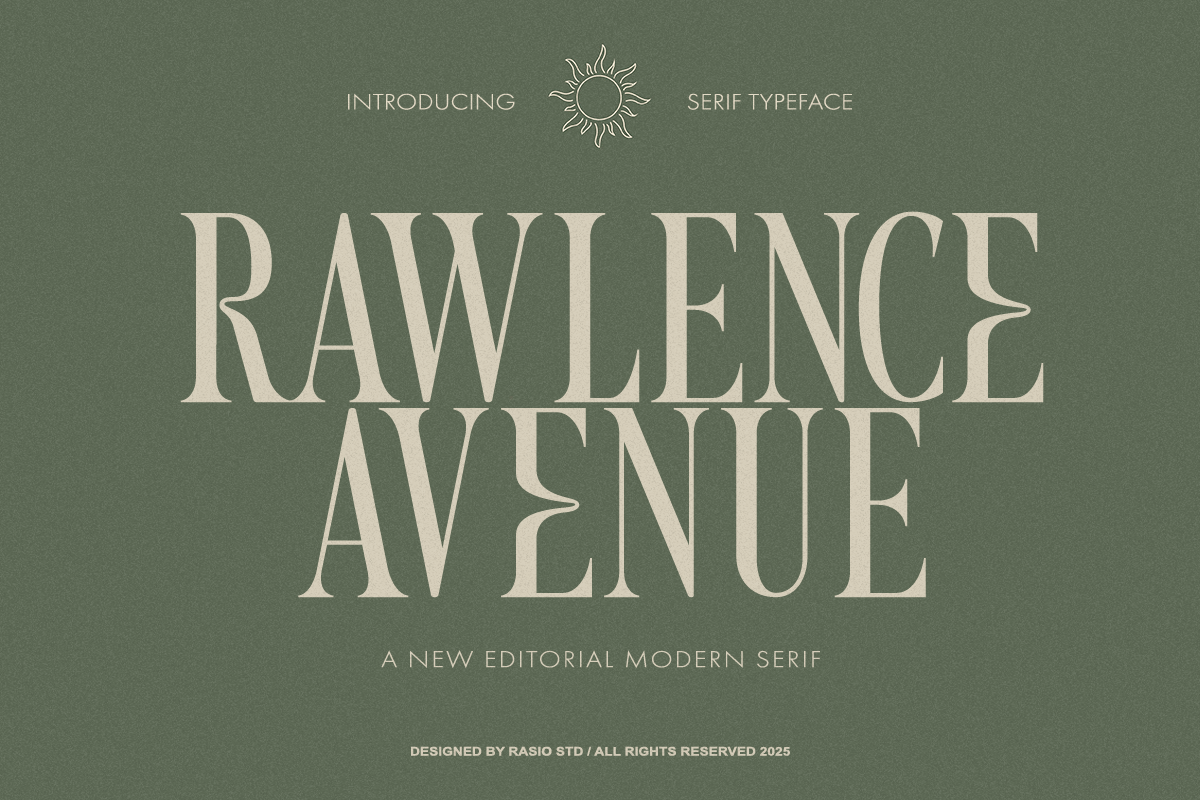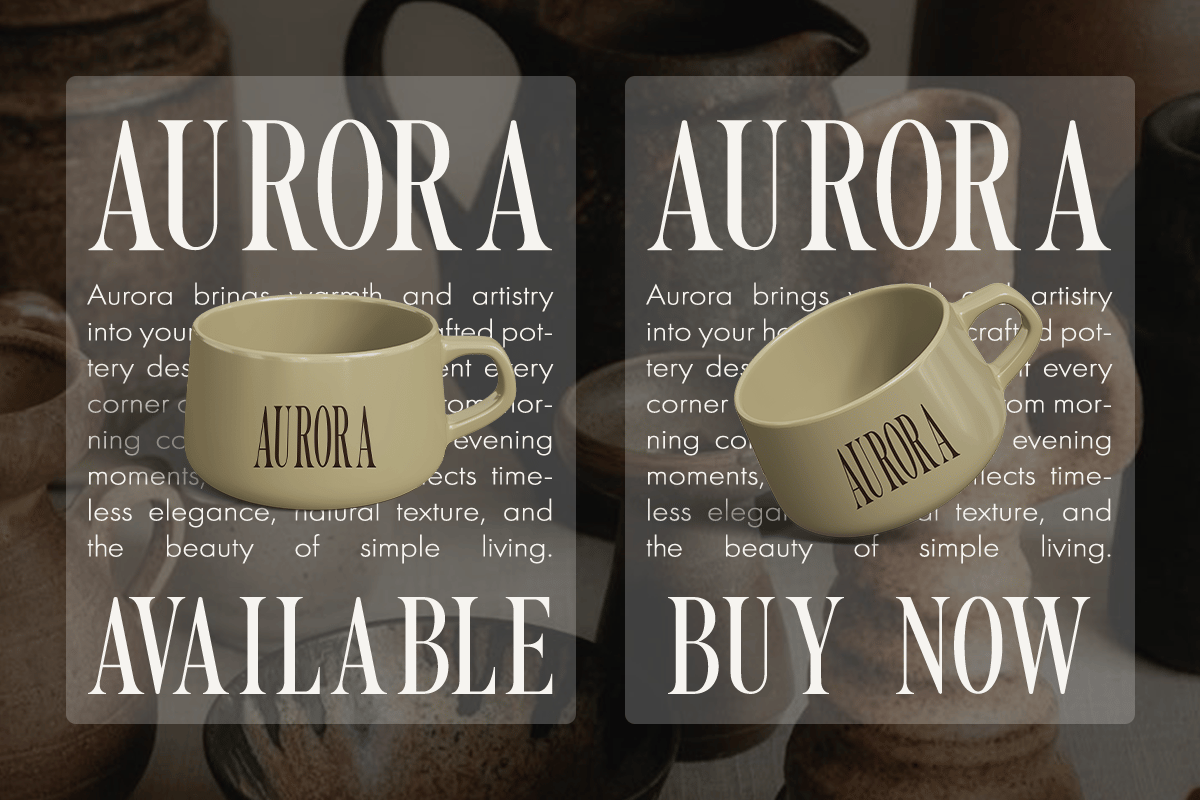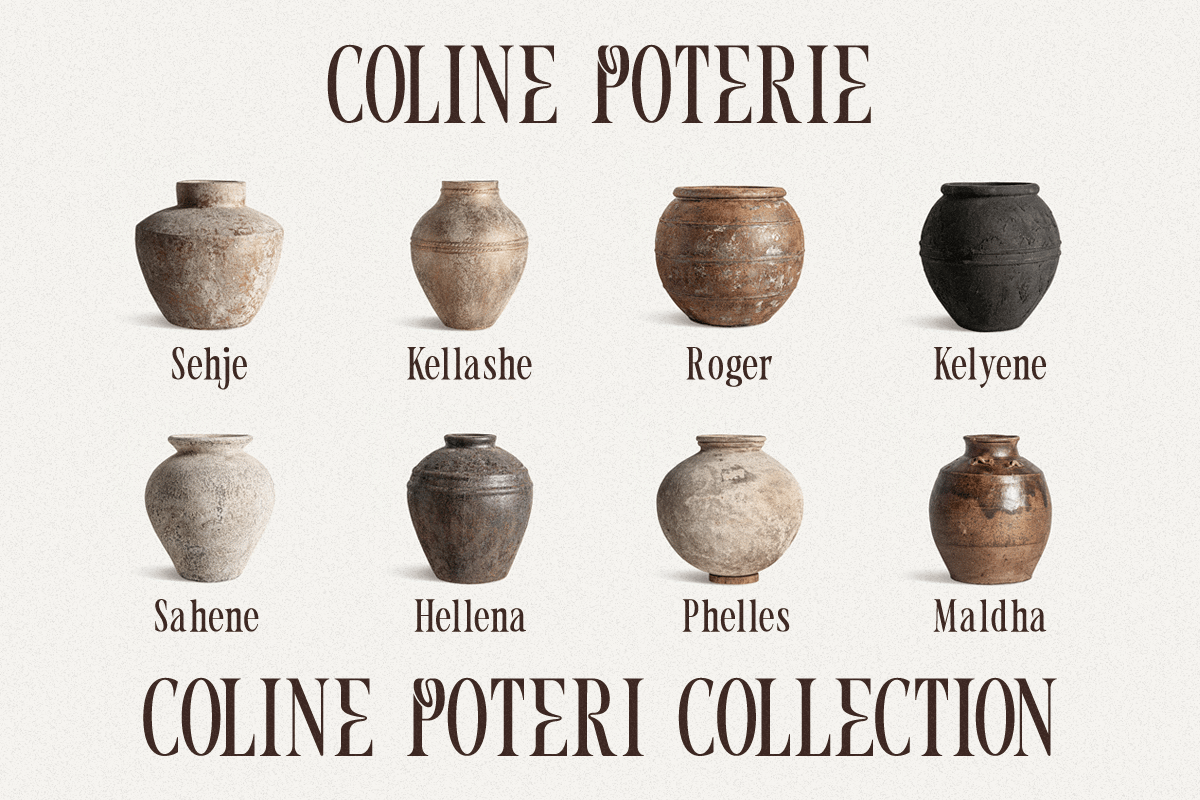
Rawlence Avenue Modern Serif Font
Rawlence Avenue Modern Serif Font is a versatile typeface ideal for various projects, including logos, branding, posters, blog headers, advertisements. The free version includes a full set of uppercase and lowercase letters, available in OTF format.